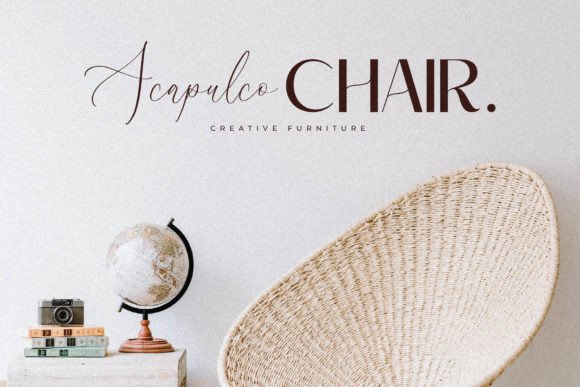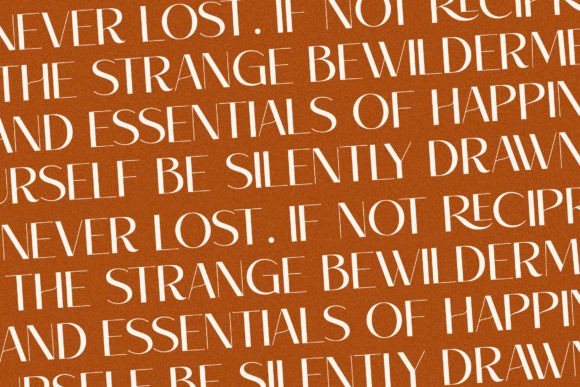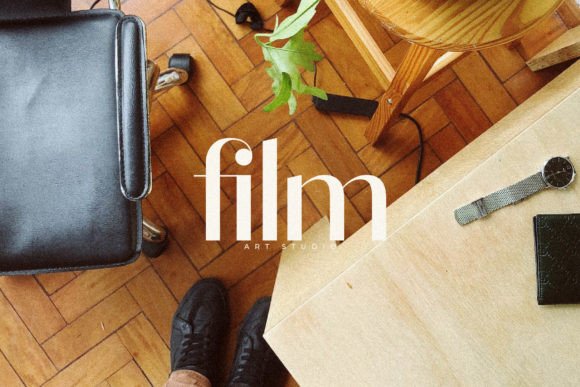
Robima Merttha Duo Font
Robima Merttha is a stylish and modern font duo (sans serif and script). This typeface is perfect for elegant and luxurious logos, book or movie title designs, fashion brands, magazines, clothes, lettering, quotes, and so much more.